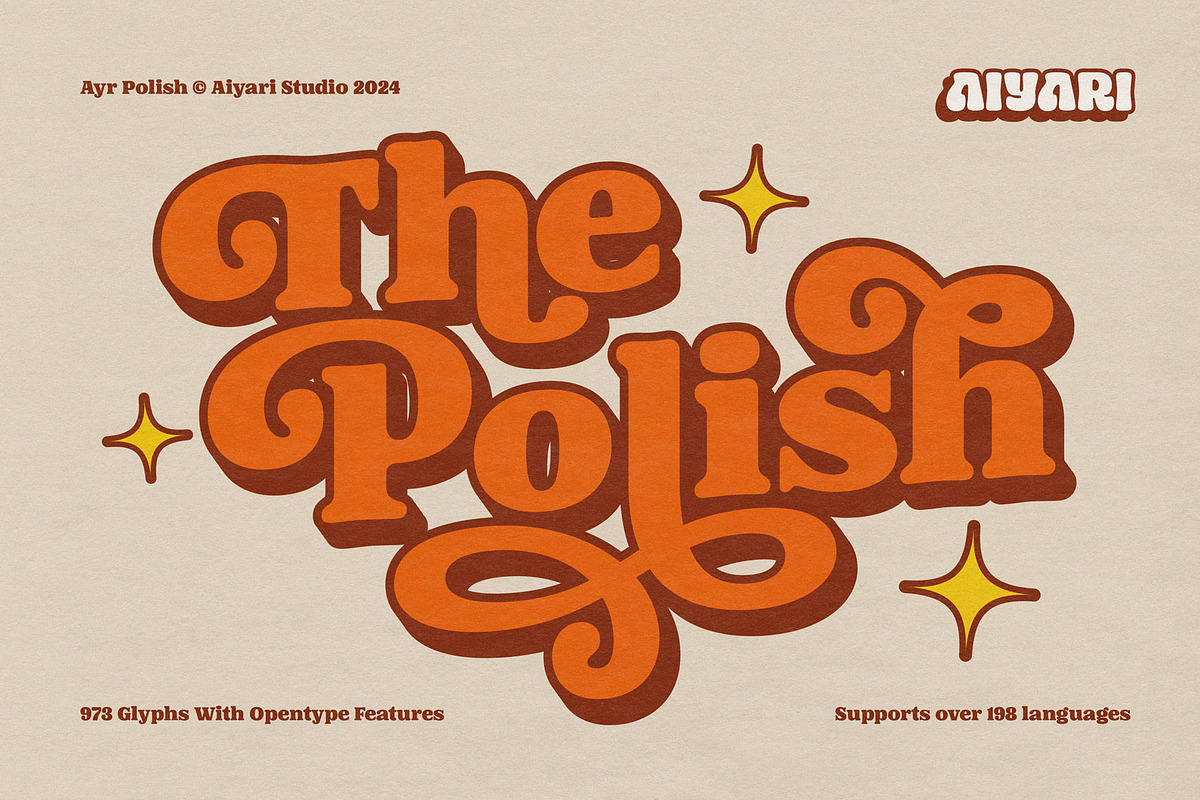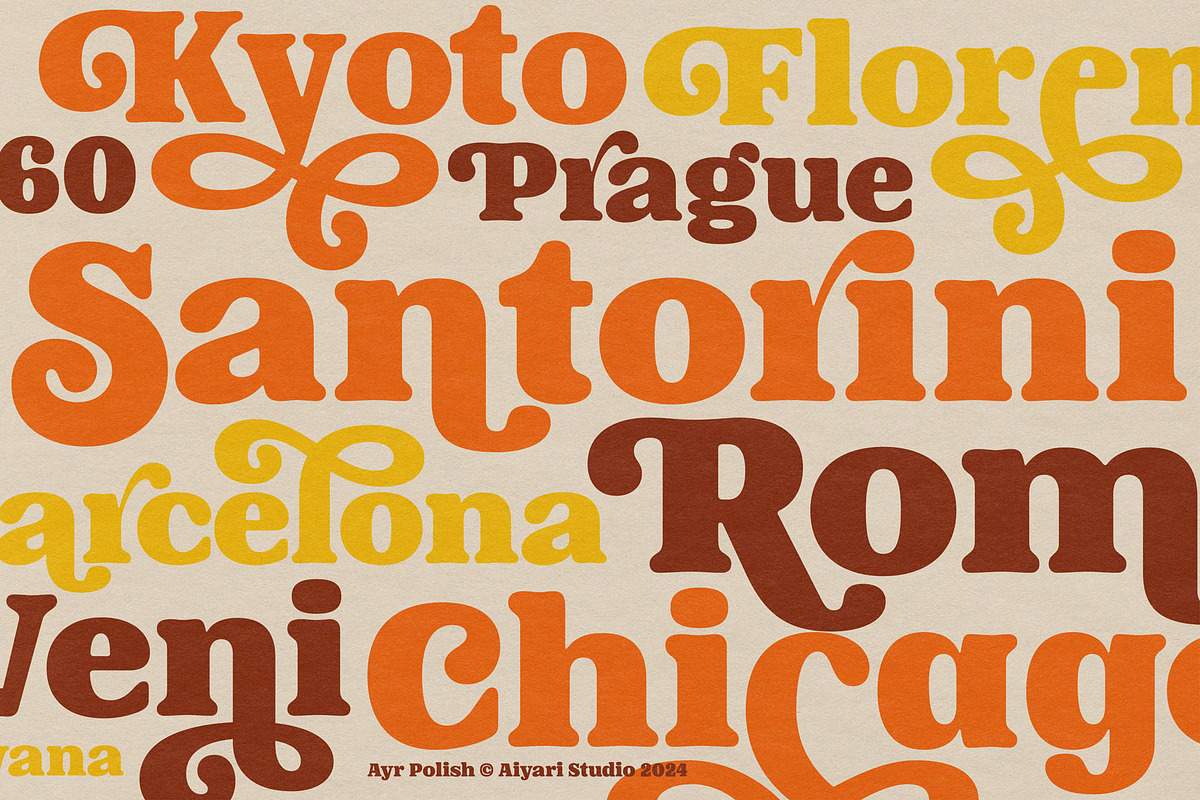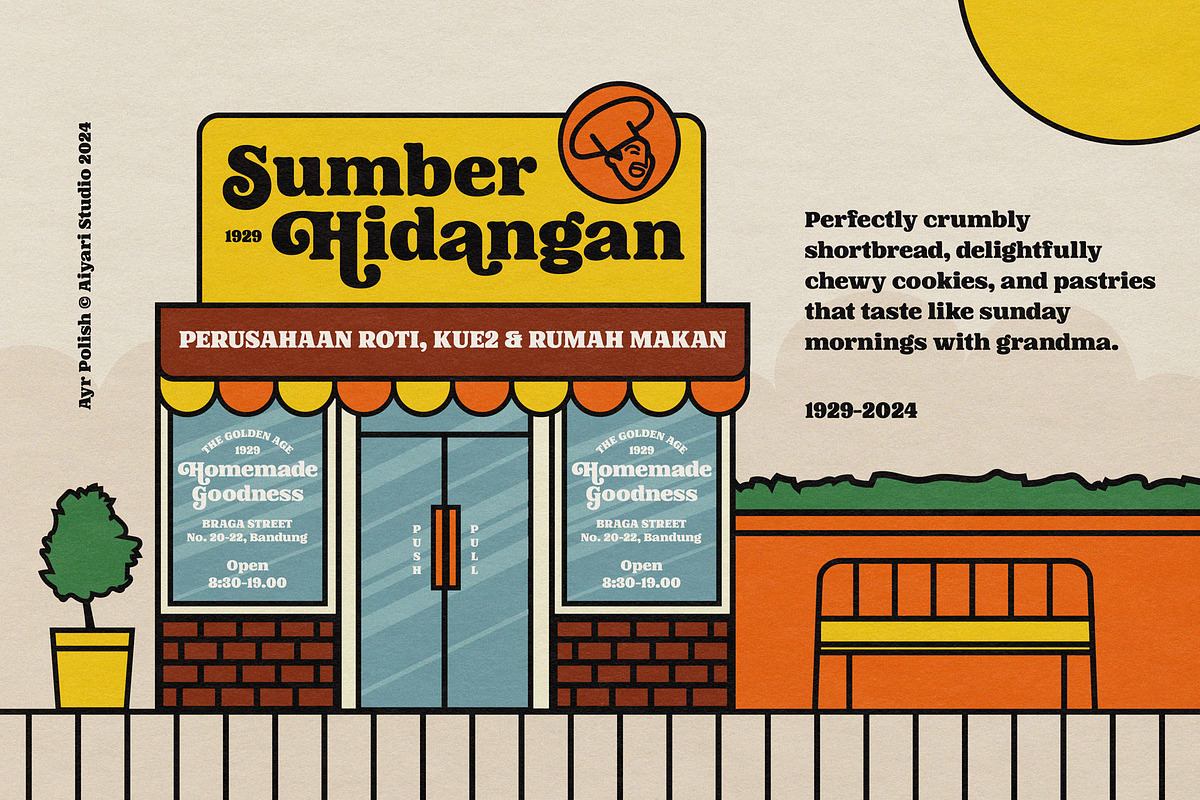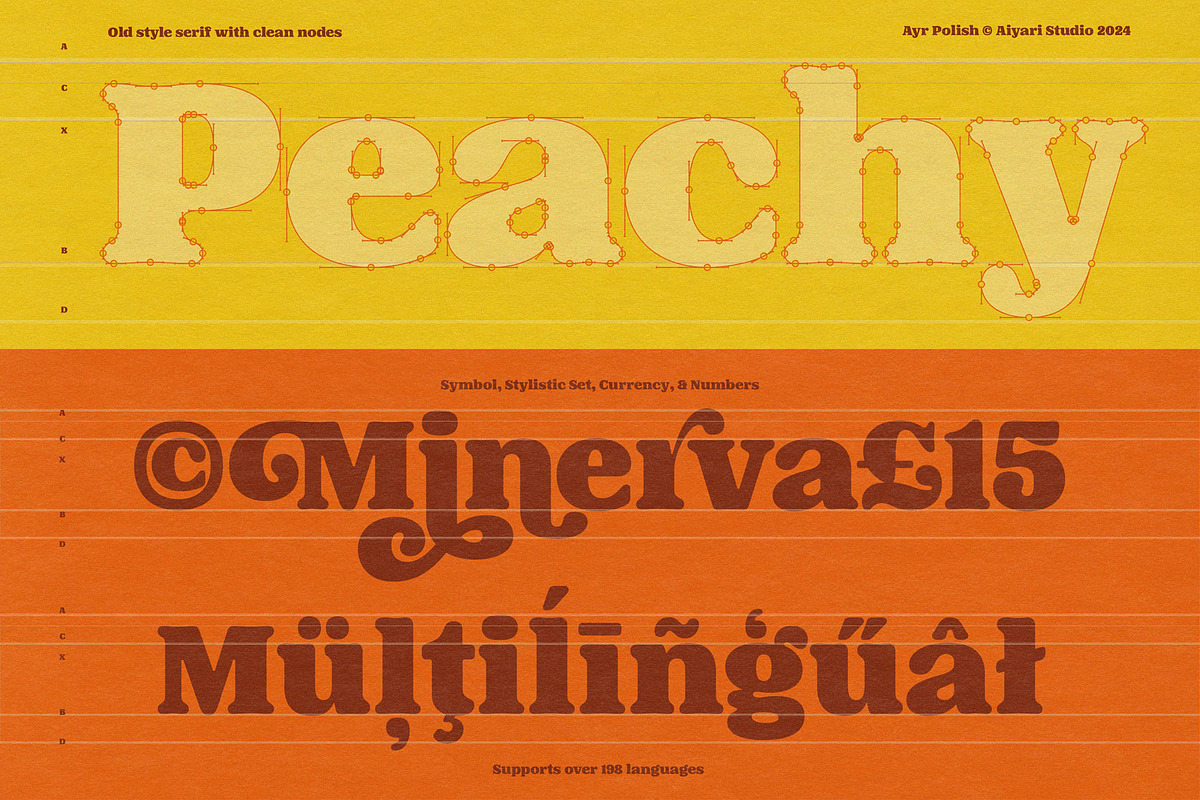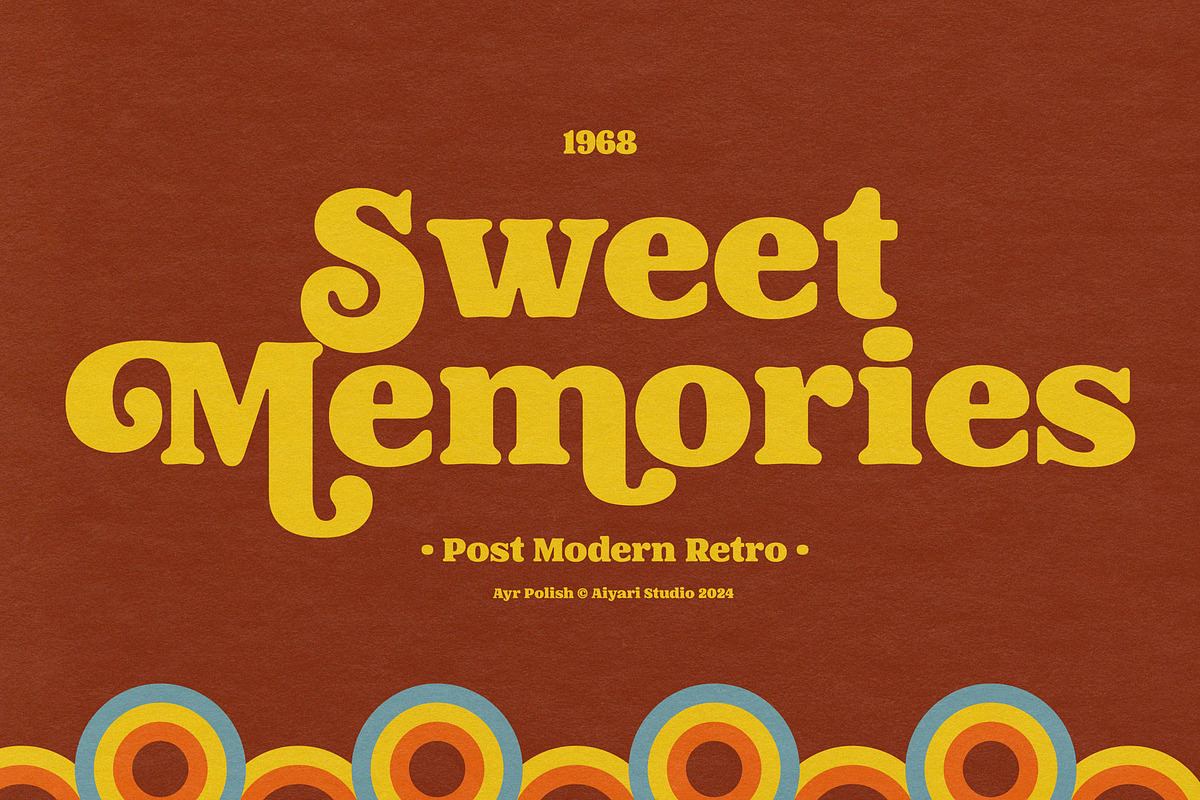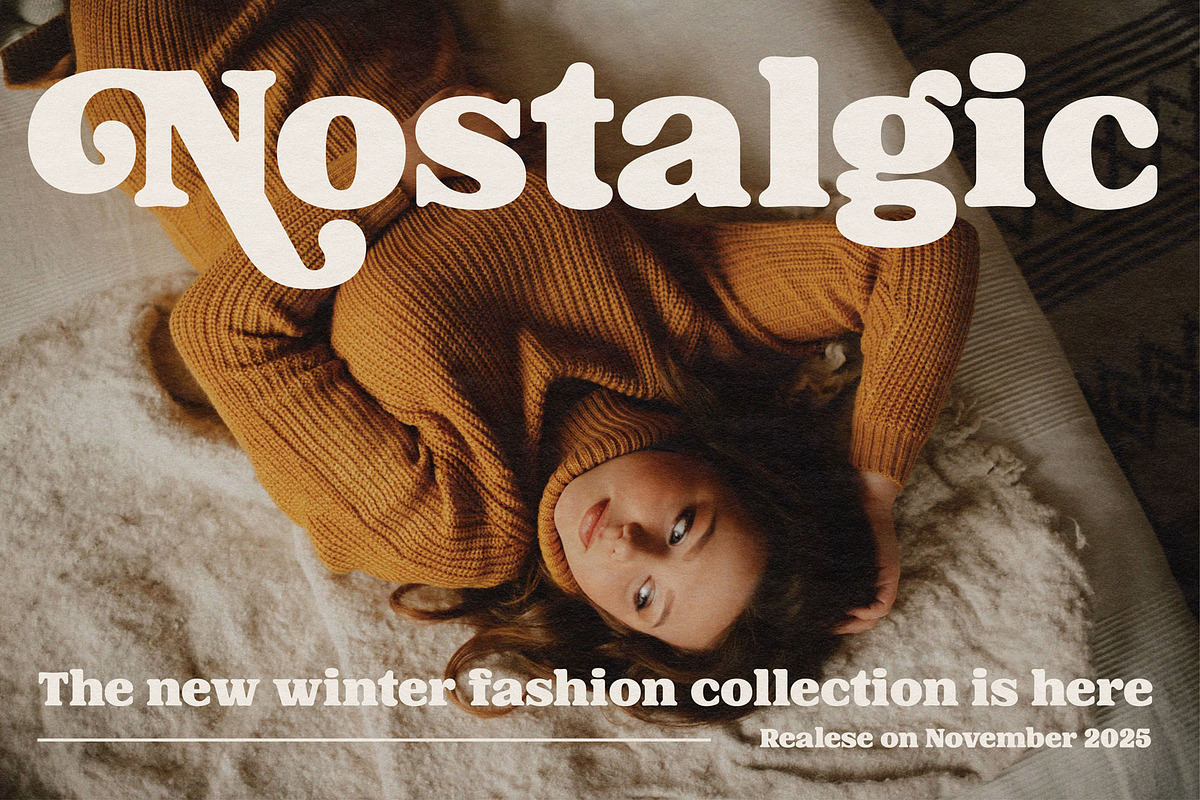
The Polish
The Polish is a retro-inspired, rounded old-style serif typeface, evolving from the beloved Beardy font. Merging the playful spirit of 60s-70s pop culture with elegant flourishes. The typeface includes opentype features from ligatures and stylistic alternates (Ss01 - Ss15).
Polish best uses for headings, invitation, Logo type, quotes, apparel design, flyer, poster, greeting cards, product packaging, book cover, printed quotes, cover album, movie, etc